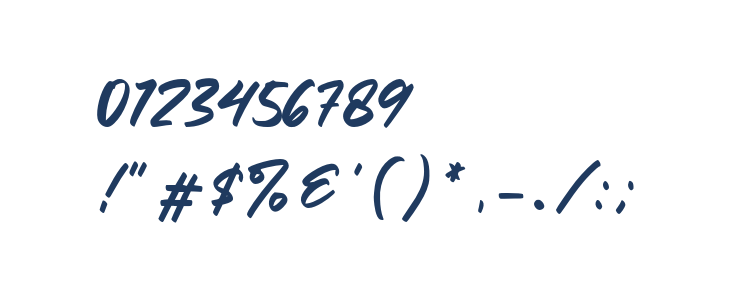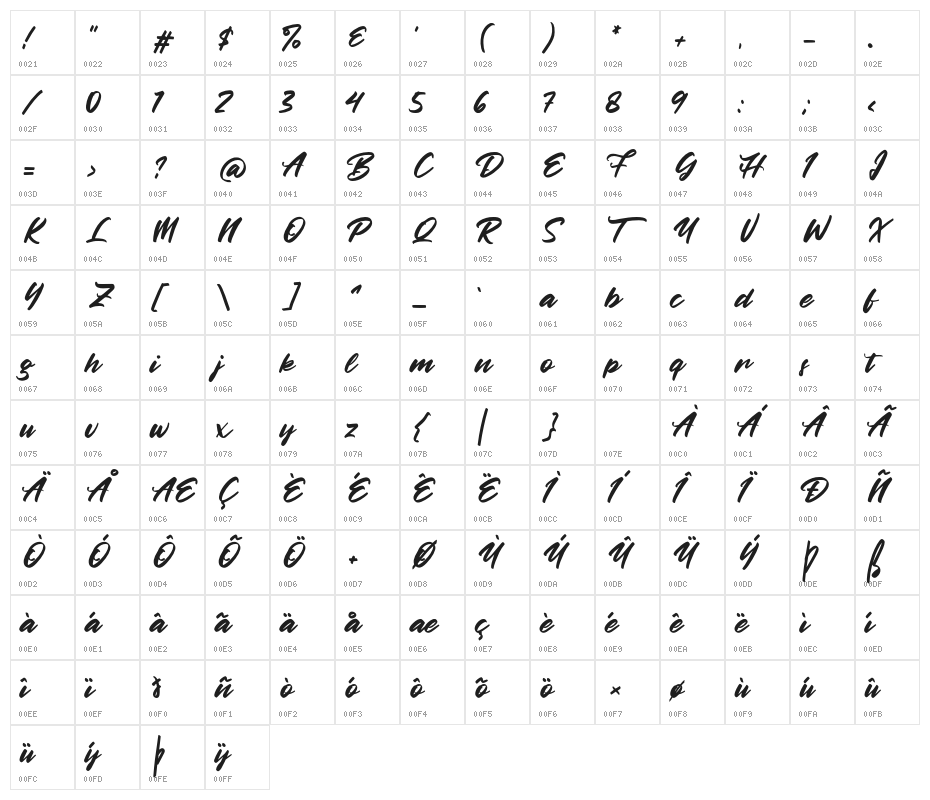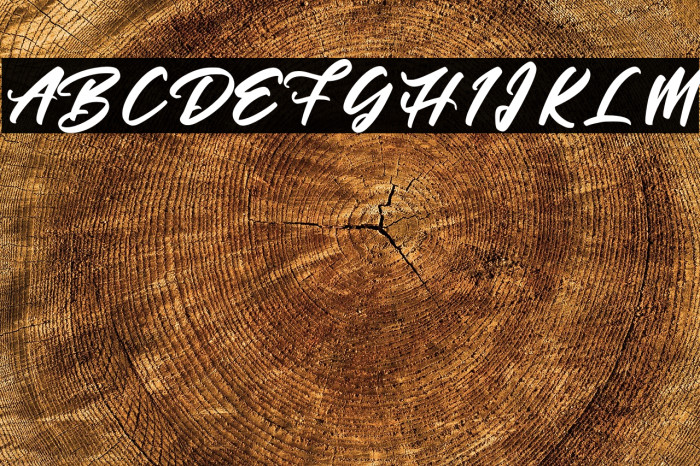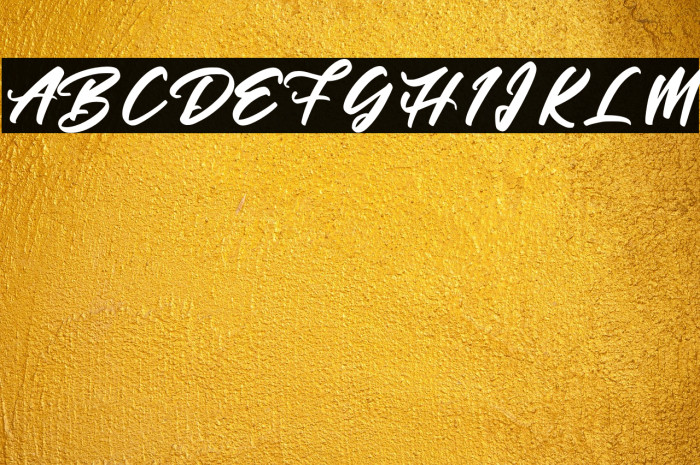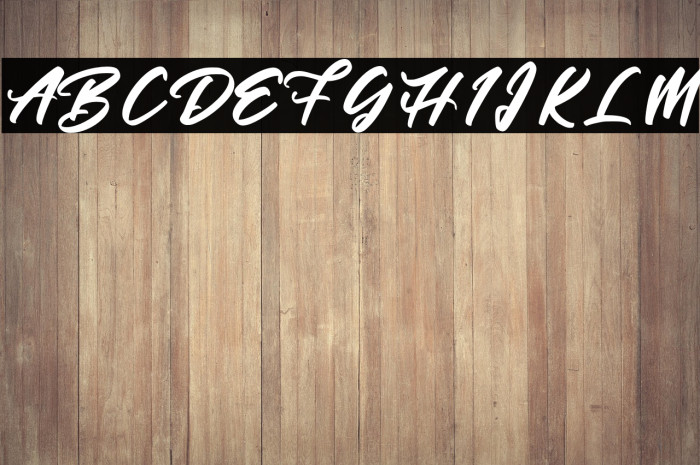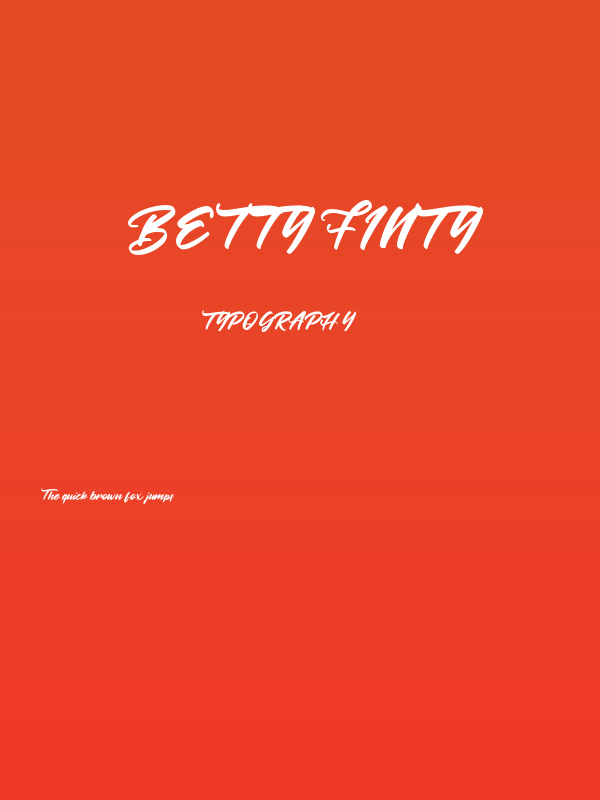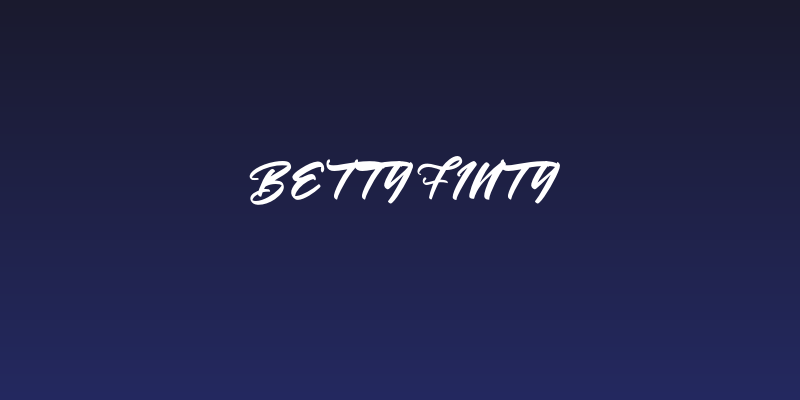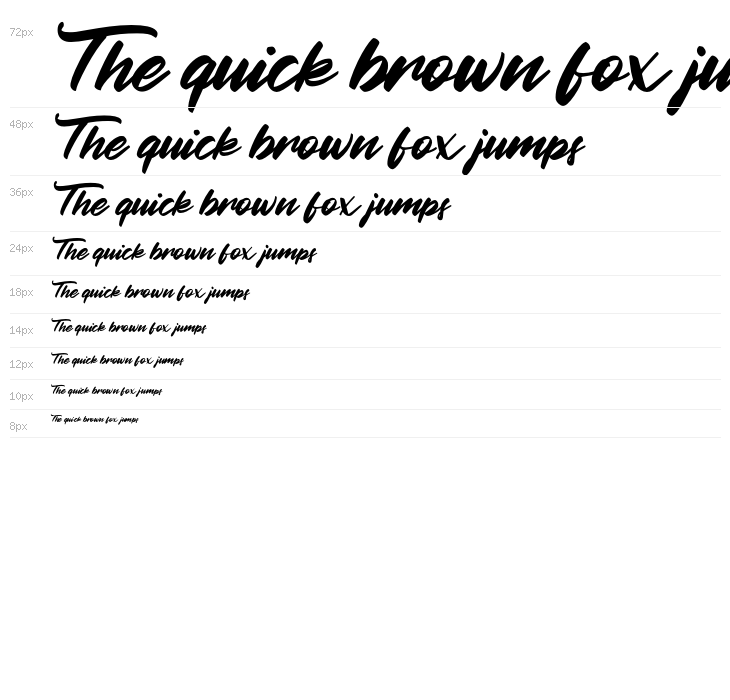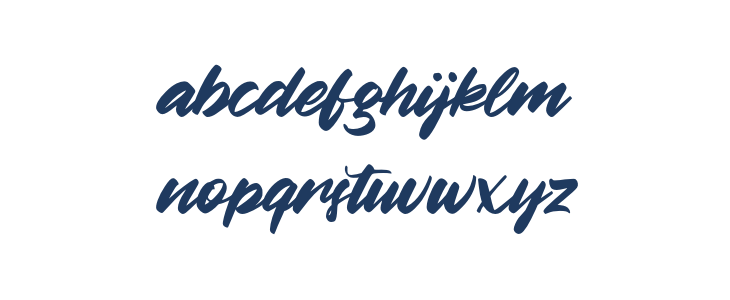
Betty Finty Font
Betty Finty Description
This font features a bold and expressive script style, characterized by its fluid and dynamic strokes. The letters are connected in a cursive manner, giving it a handwritten appearance. The uppercase letters are slightly more elaborate, with sweeping curves and flourishes, while the lowercase letters maintain a consistent flow. The numerals and special characters are designed to match the overall aesthetic, with similar boldness and curvature. This font exudes a sense of elegance and creativity, making it suitable for various artistic and decorative applications.